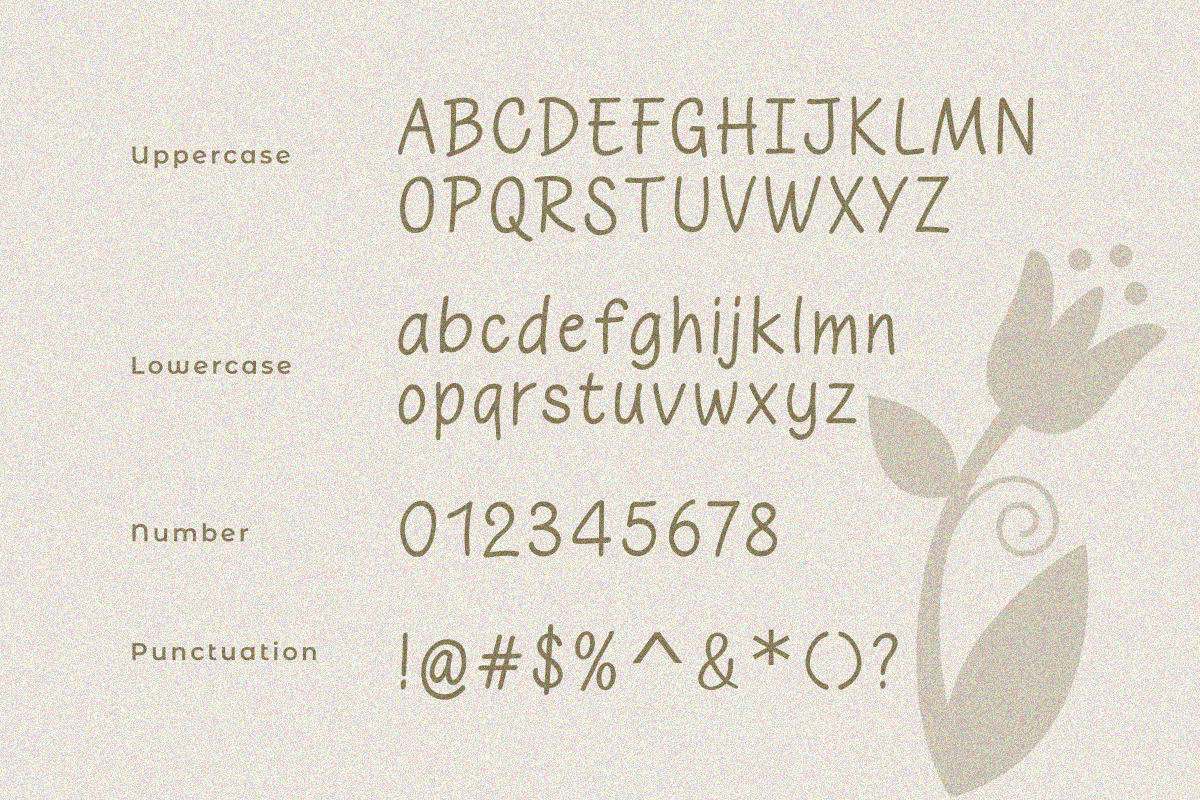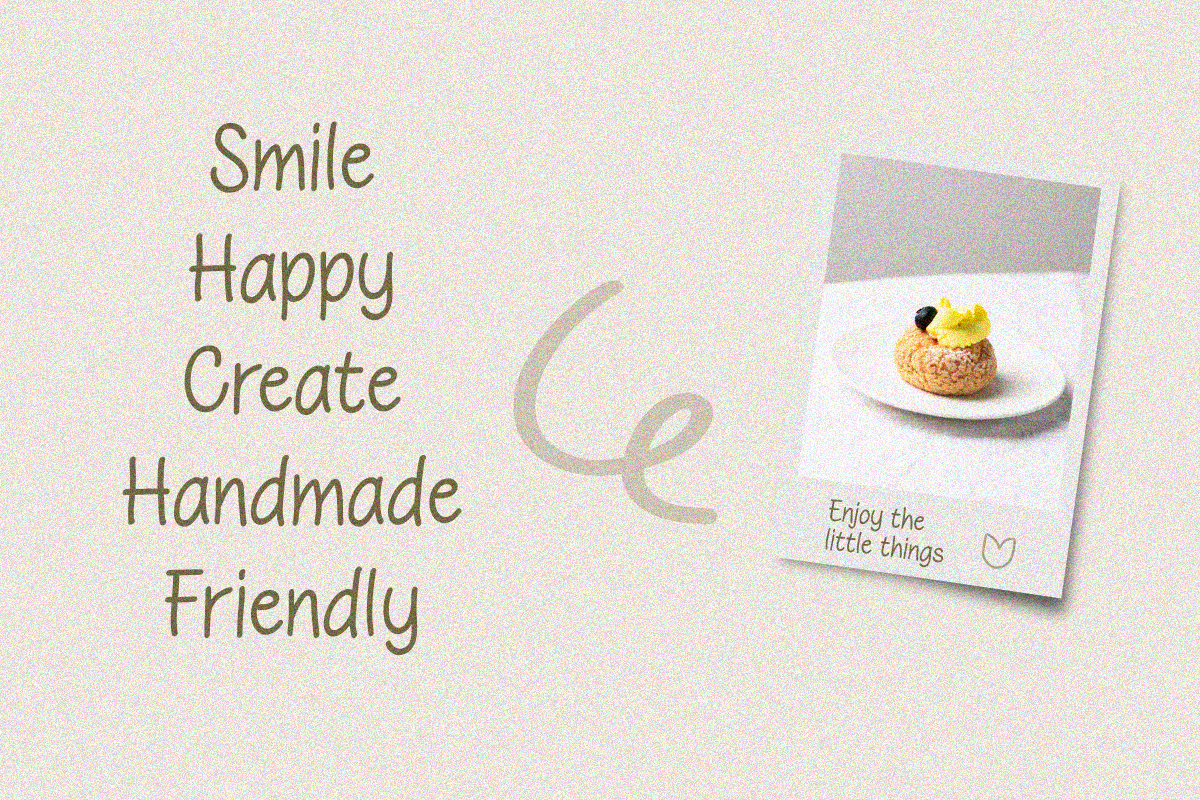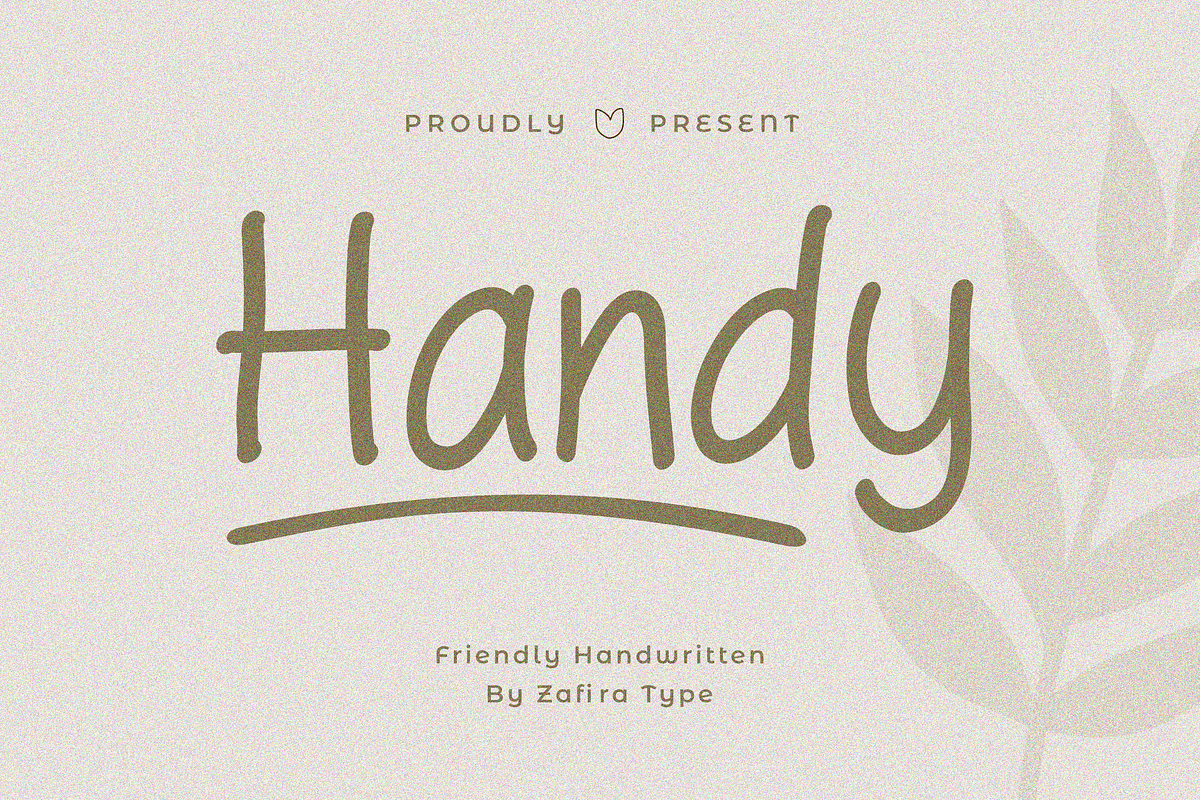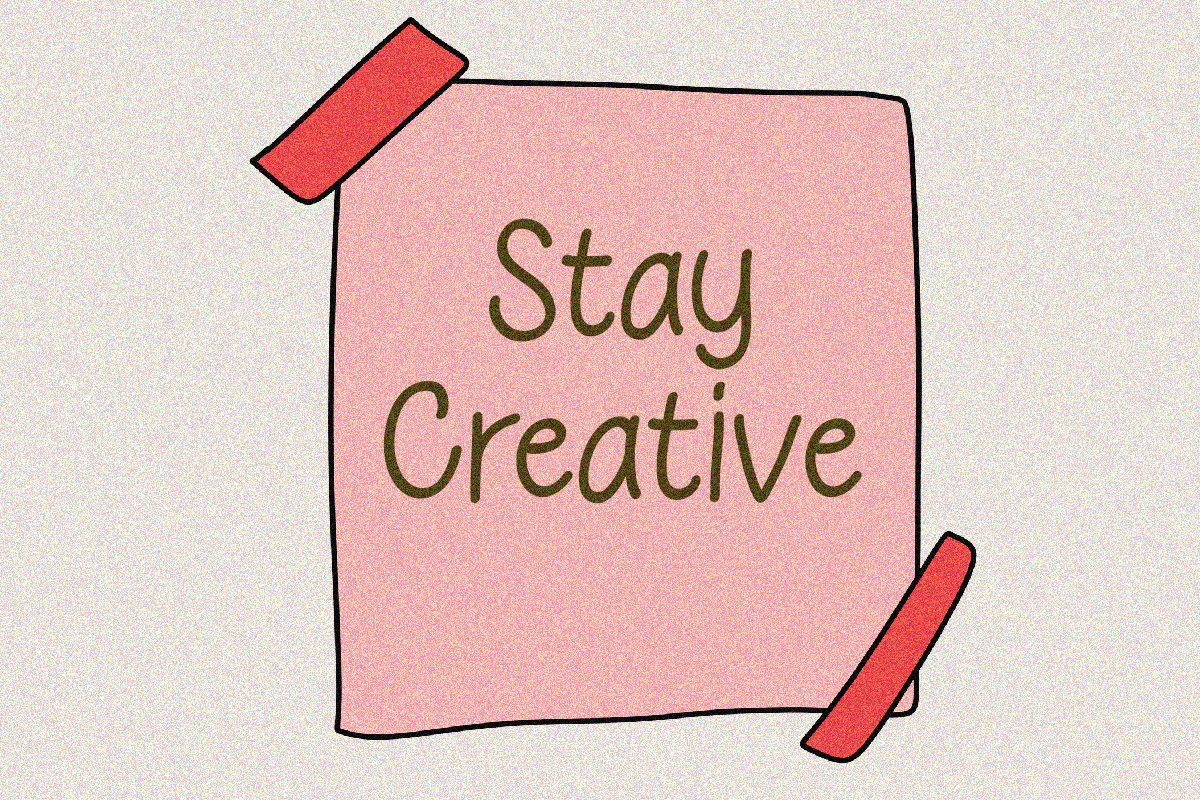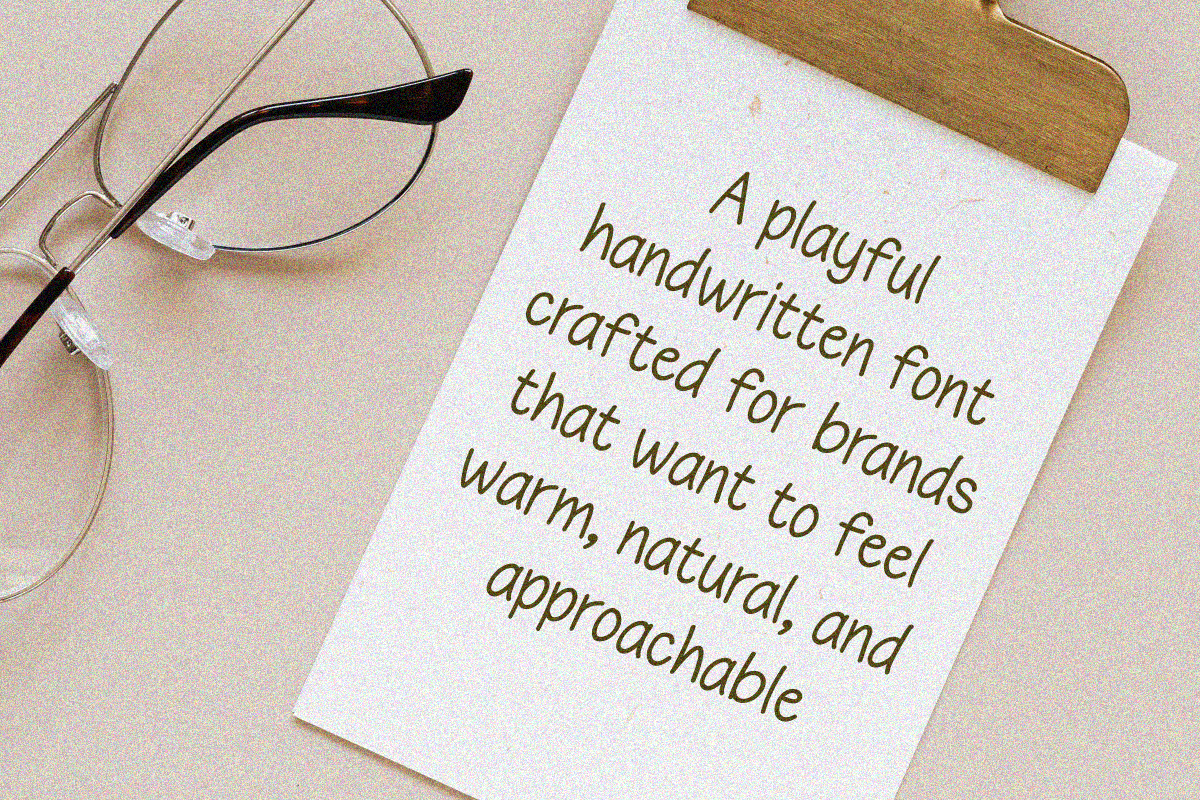
Handy
Handy is a charming handwritten font designed to bring warmth, personality, and authenticity to your creative projects. Featuring smooth strokes, rounded shapes, and a naturally flowing handwritten style, this font delivers a friendly and approachable appearance while maintaining excellent readability.
Inspired by casual handwriting, Handy captures the feeling of personal notes, handmade products, and heartfelt communication. Its clean and balanced letterforms make it versatile enough for both digital and print applications, allowing your designs to feel more human, inviting, and engaging.